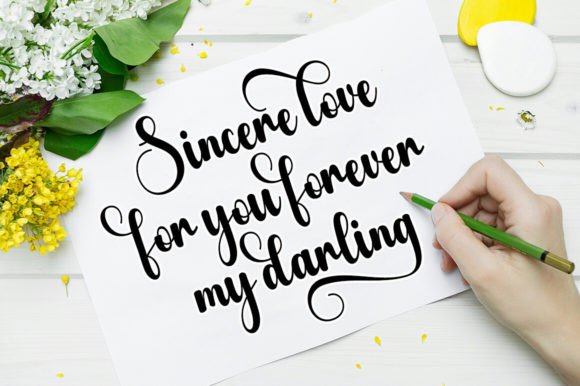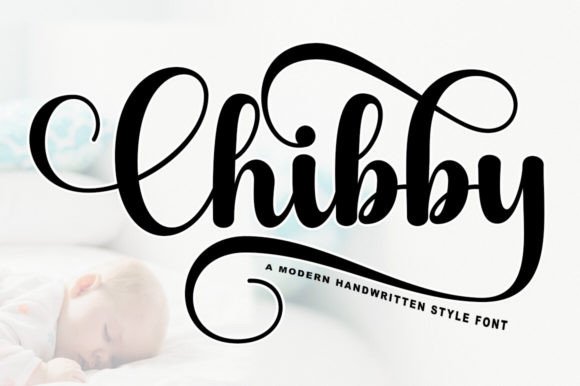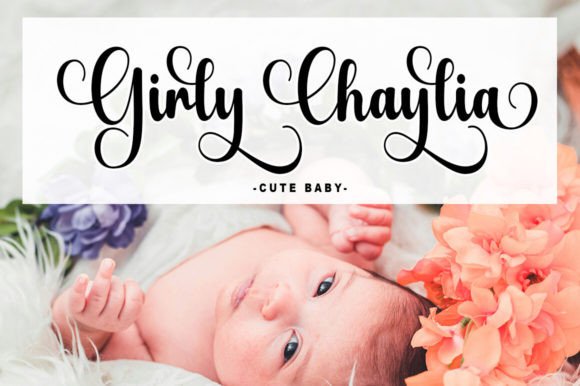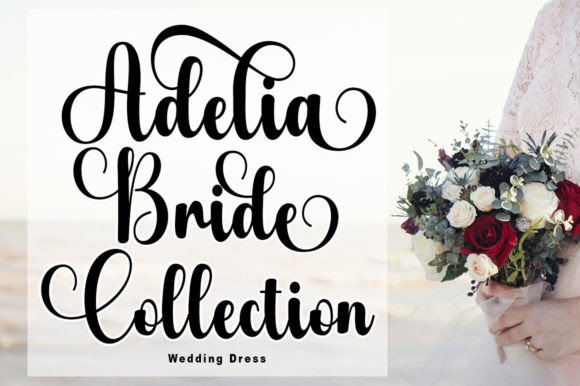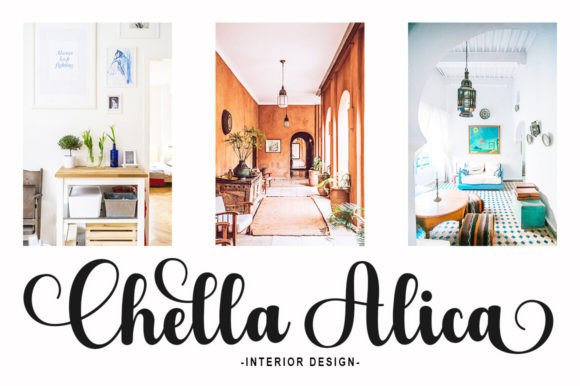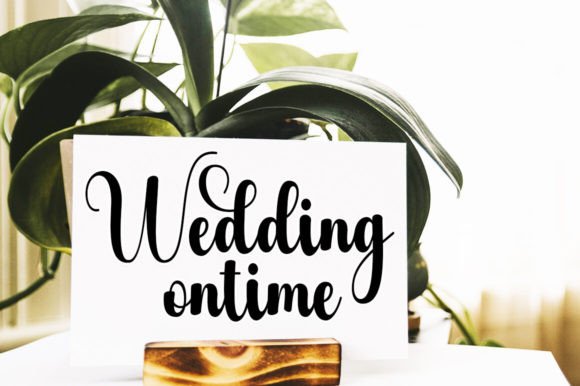
Introducing Chibby Baby Font: Elevate Your Designs with Elegance and Charm
In the world of typography, few fonts manage to strike a balance between charm and elegance. However, Chibby Baby Font is an exception. This stunning script font is a stylish homage to classic calligraphy, making it an ideal choice for designers and crafters looking to elevate their design projects. Whether you’re working on branding, titles, wedding designs, invitations, signs, logos, labels, or more, Chibby Baby Font is sure to add a touch of sophistication and whimsy.
The Characteristics of Chibby Baby Font
Chibby Baby Font boasts a range of characteristics that make it a standout in the world of typography. Its elegant and charming script style is reminiscent of traditional calligraphy, with flowing lines and curves that add a touch of whimsy to any design. The font’s classic feel makes it versatile and suitable for a wide range of applications, from formal events to everyday branding.
What Makes Chibby Baby Font So Versatile?
One of the key features that make Chibby Baby Font so versatile is its ability to adapt to different design contexts. Here are a few ways you can use this stunning font:
- Branding: Create a lasting impression with Chibby Baby Font. Use it to craft logos, business cards, and letterheads that exude elegance and sophistication.
- Wedding Designs: Make your wedding stationery, invitations, and decorations truly special with this beautiful font. It’s perfect for creating romantic and memorable designs.
- Invitations: Whether it’s a birthday party, baby shower, or graduation ceremony, Chibby Baby Font is ideal for creating eye-catching and stylish invitations.
- Signs and Labels: Add a touch of elegance to your signs, labels, and packaging with this versatile font. It’s perfect for crafters and small business owners looking to create a professional image.
Why Choose Chibby Baby Font?
With so many fonts available, why choose Chibby Baby Font? Here are a few compelling reasons:
- Unique Style: Chibby Baby Font offers a unique and distinctive style that’s sure to set your designs apart from the crowd.
- Elegance and Charm: This font combines elegance and charm in a way that’s hard to find in other typography options.
- High-Quality Design: Chibby Baby Font is designed with high-quality craftsmanship in mind, ensuring that your designs look professional and polished.
Tips for Using Chibby Baby Font Effectively
To get the most out of Chibby Baby Font, here are a few tips to keep in mind:
- Pair it with Other Fonts: Experiment with pairing Chibby Baby Font with other fonts to create a unique and visually appealing design.
- Use it for Headlines: Chibby Baby Font is perfect for headlines and titles. Use it to create eye-catching and stylish headings that draw attention.
In conclusion, Chibby Baby Font is a stunning script font that’s sure to elevate your design projects to new heights. With its elegant and charming style, versatility, and high-quality design, it’s an ideal choice for designers and crafters looking to add a touch of sophistication and whimsy to their work. Whether you’re working on branding, wedding designs, invitations, or signs, Chibby Baby Font is a great choice. So why wait? Download Chibby Baby Font today and start creating beautiful designs that will leave a lasting impression!